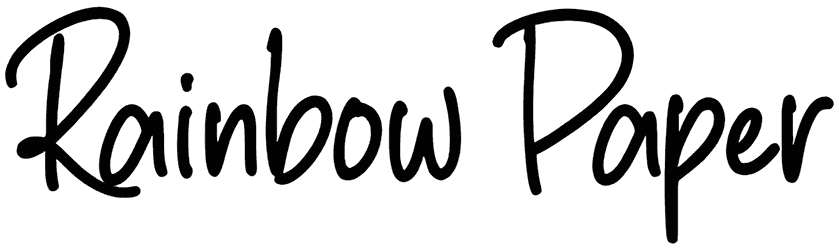
Rainbow Paper Font
If you are in the middle of a project that requires a personalized look, we offer you to use a script font such as Rainbow Paper. It comes with a handwritten style that dances along the baseline.
So, you can include it in posters, logos, printing on clothes, and editing pictures. This scrapbook font can take your artwork to the highest level by conveying a sense of drama, jauntiness, and humor.